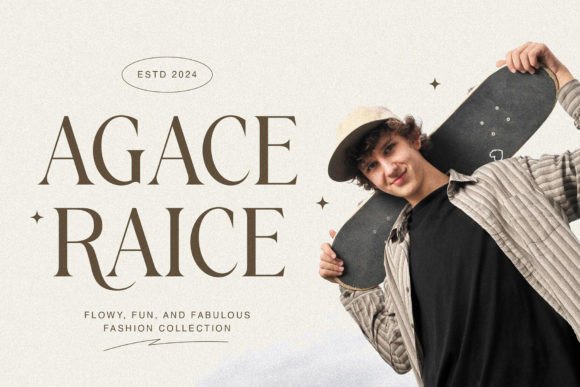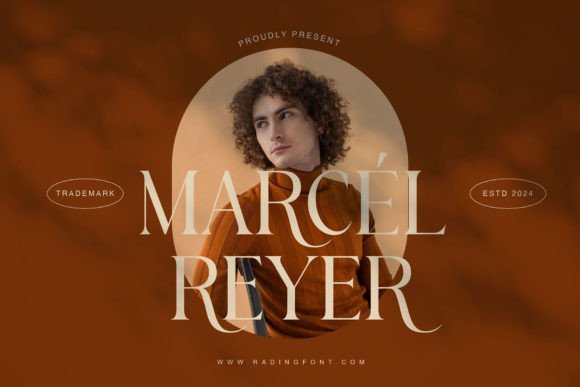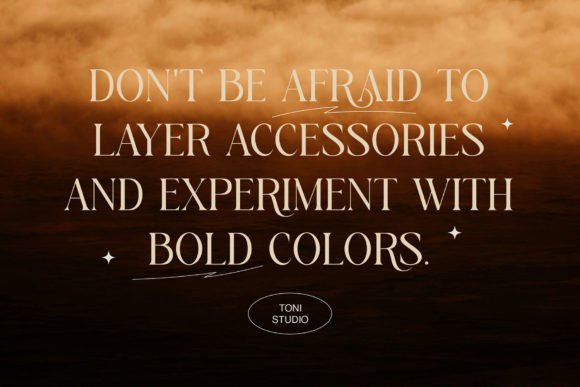
Introduction to Rading Font
Rading is a beautiful Stylish Serif Font designed for unique, luxurious, and classy design needs.
Its distinctive shape enhances brand value, making it ideal for designers and product owners who desire elegance and sophistication .
Key Features of Rading Font
Why Choose Rading Font?